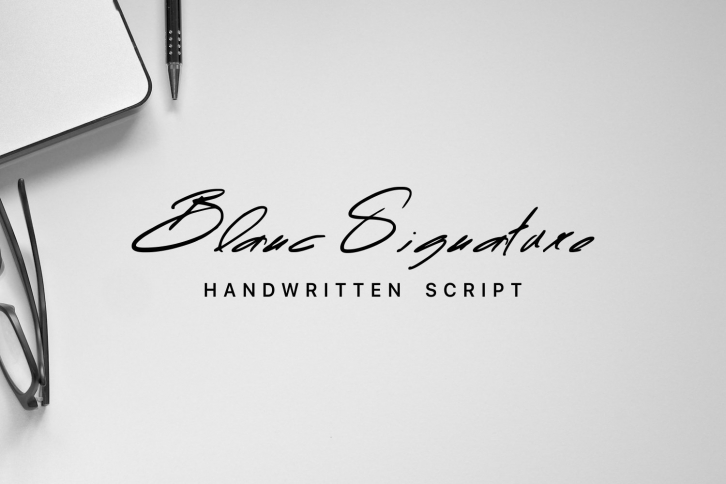
Blanc Signature - Is a hand-drawn script font, great for logo signatures. It can also be used for your autography in any graphic material. It can be used in all advertising materials, perfect for: branding, business card, packaging, flyer, logo, photos, books, packaging, posters, etc ...